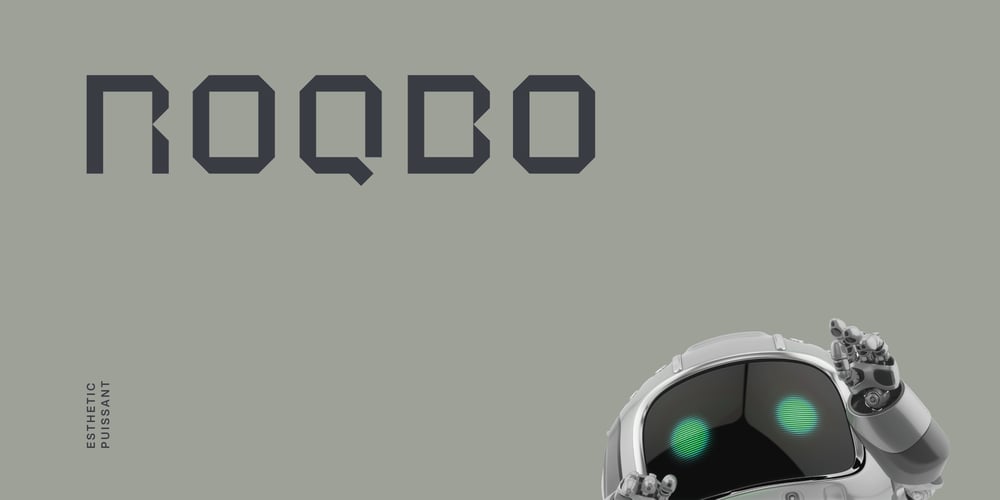
Roqbo Font Family was designed by Andrew Seah and published by Baqoos. Roqbo contains 2 styles and family package options. Roqbo is an esthetic puissant tech sans apt for headline, editorial, branding, packaging, printed materials and typographic applications. 200+ glyphs with ligatures and fractions provided in opentype .otf and .woff format.